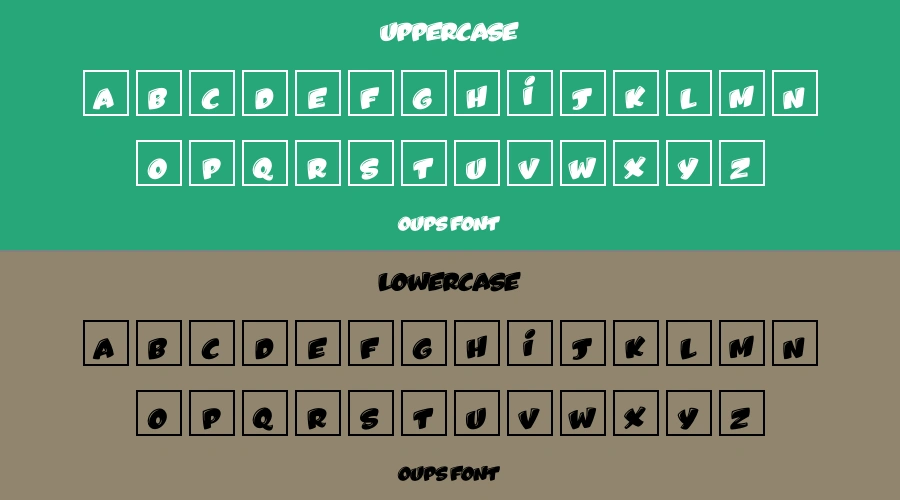
About Oups Font
Oups Font stands out for its distinctive combination of organic curves and refinement. Ideal for corporate communications, it provides the sophistication and user trust that professional projects demand. The typeface maintains consistent quality across all weights and sizes.
Key features include refined rhythmic patterns and practical word marks, enhancing typographic expression. In instruction steps applications, Oups Font demonstrates exceptional OCR compatibility. The joint construction and engineering heritage contribute to its distinctive character and professional appeal.